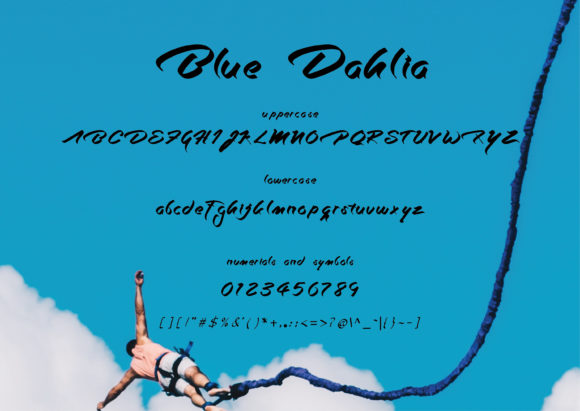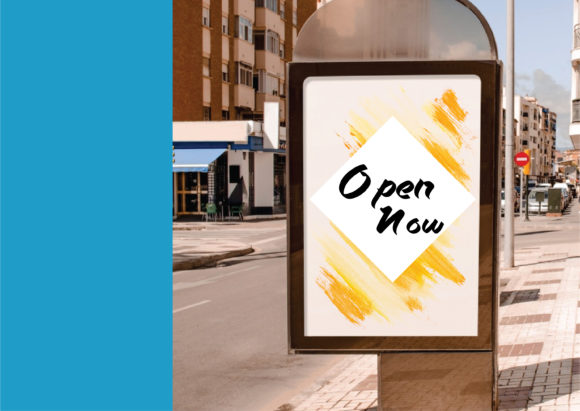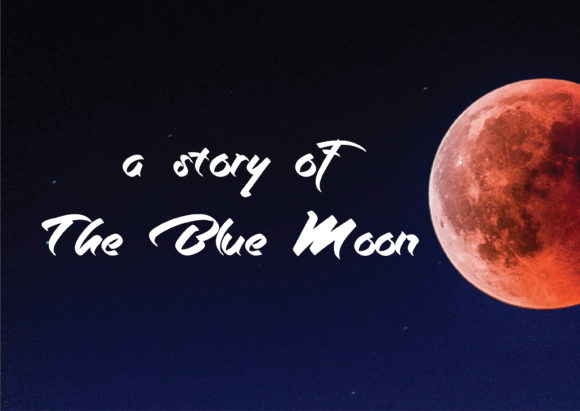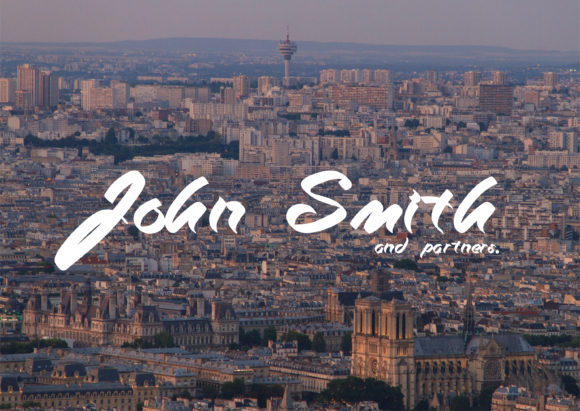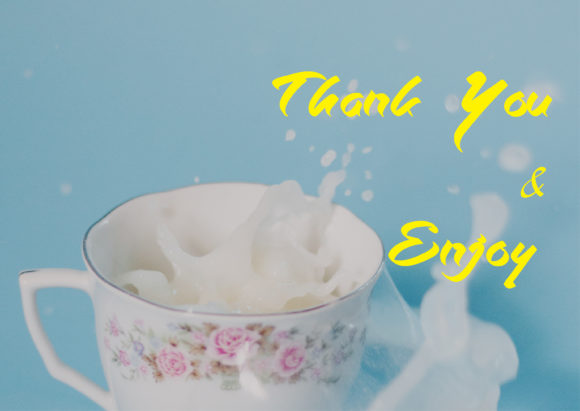
Introducing Blue Dahlia Font: The Perfect Handwritten Touch for Your Designs
Are you looking for a font that adds a personal and smart touch to your design projects? Look no further than the Blue Dahlia Font, a bold handwritten font with an authentic brush style. This beautiful font is perfect for designers and crafters who want to add a unique and creative element to their work.
What is Blue Dahlia Font?
Blue Dahlia Font is a carefully crafted handwritten font that mimics the look and feel of authentic brush writing. With its bold and expressive strokes, this font is sure to make a statement in any design project. Whether you’re working on a logo, a poster, a website, or a social media graphic, Blue Dahlia Font is the perfect choice for adding a personal and creative touch.
Key Features of Blue Dahlia Font
- Authentic Brush Style: Blue Dahlia Font features an authentic brush style that gives it a unique and handmade look.
- Bold and Expressive: The font’s bold and expressive strokes make it perfect for headlines, titles, and other design elements that need to stand out.
- Handwritten Feel: Blue Dahlia Font has a warm and personal feel that’s perfect for adding a touch of personality to your designs.
- Versatile: This font is versatile and can be used for a wide range of design projects, from logos and posters to websites and social media graphics.
Why Choose Blue Dahlia Font?
There are many reasons why Blue Dahlia Font is the perfect choice for designers and crafters. Here are just a few:
- Unique and Creative: Blue Dahlia Font is a unique and creative font that will help your designs stand out from the crowd.
- Easy to Read: Despite its bold and expressive strokes, Blue Dahlia Font is easy to read and understand, making it perfect for use in a wide range of design projects.
- Customizable: This font is highly customizable, allowing you to adjust the size, color, and style to fit your design needs.
- Time-Saving: With Blue Dahlia Font, you can create professional-looking designs in no time, saving you time and effort.
How to Use Blue Dahlia Font
Using Blue Dahlia Font is easy. Here are a few tips to get you started:
- Pair it with Other Fonts: Blue Dahlia Font pairs well with other fonts, so feel free to experiment with different combinations to find the perfect look for your design.
- Use it for Headlines and Titles: This font is perfect for headlines and titles, where its bold and expressive strokes can really make an impact.
- Add a Pop of Color: Blue Dahlia Font looks great in a variety of colors, so don’t be afraid to add a pop of color to your design.
Who is Blue Dahlia Font for?
Blue Dahlia Font is perfect for a wide range of designers and crafters, including:
- Graphic Designers: If you’re a graphic designer looking for a unique and creative font to add to your collection, Blue Dahlia Font is a great choice.
- Crafters: If you’re a crafter who loves to create handmade cards, gift tags, and other paper crafts, Blue Dahlia Font is a great addition to your toolkit.
- Small Business Owners: If you’re a small business owner looking for a way to add a personal touch to your branding, Blue Dahlia Font is a great option.
| Font Name | Blue Dahlia Font |
| Author | little scar |
In conclusion, Blue Dahlia Font is a beautiful and versatile handwritten font that’s perfect for adding a smart and personal feel to any design project. With its authentic brush style, bold and expressive strokes, and warm and personal feel, this font is sure to become a favorite among designers and crafters. So why wait? Download Blue Dahlia Font today and start creating stunning designs that stand out from the crowd!